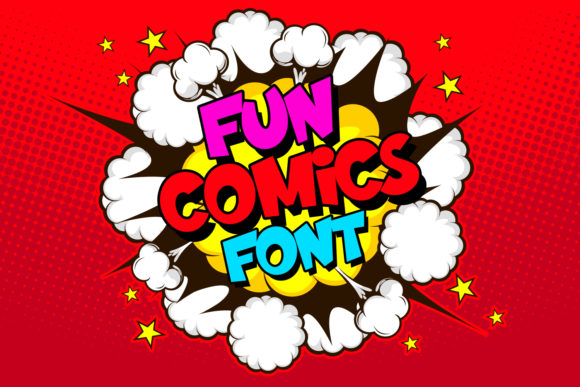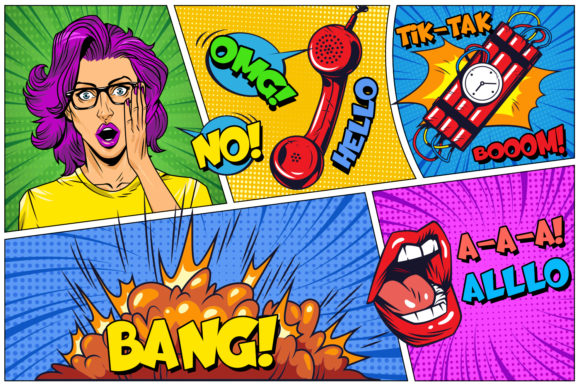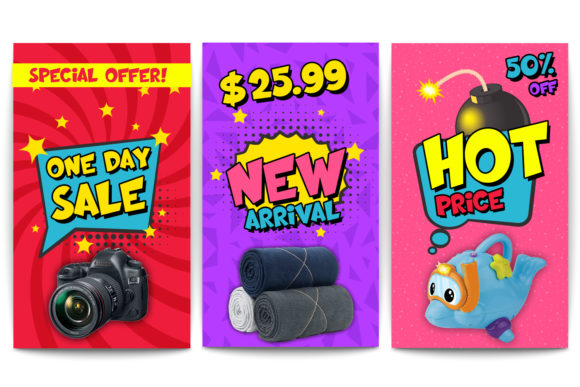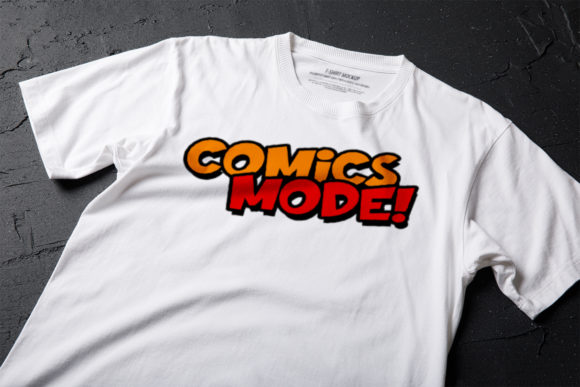
Fun Comics Font
About the Fun Comics Font
Elevate your designs with Fun Comics Font, a font that combines sophistication with readability. Fun Comics embodies quirkiness and authenticity. This enchanting display font will turn any creative idea into a true standout. Get inspired by its fun style, and use it to brighten up any kids or school project!
This font does not come with the shadow effect by default.
You can create this effect by duplicating the text and placing the duplicate behind the text yourself.
Fun Comics Font is ideally suited for headlines, short impactful phrases, logos, and playful branding projects targeting children or young adults. Its quirky charm also works well on posters, greeting cards, and packaging for products with a similar lighthearted aesthetic. Avoid using it for body text or lengthy paragraphs; its playful nature hinders readability in extended use.
This font’s personality is undeniably bold and playful, yet friendly. It projects a sense of fun and approachability. To balance its energy, pair it with a clean sans-serif like Open Sans for body text or a more structured serif like Merriweather for a touch of sophistication. A simple geometric sans-serif could also create a strong contrast.
Consider pairing it with a script font for a more whimsical feel, but choose one with a clear, legible style to avoid overwhelming the design. For instance, a slightly more formal script like Great Vibes could create interesting visual tension.
Fun Comics Font Usage Examples
Fun Comics Font Example